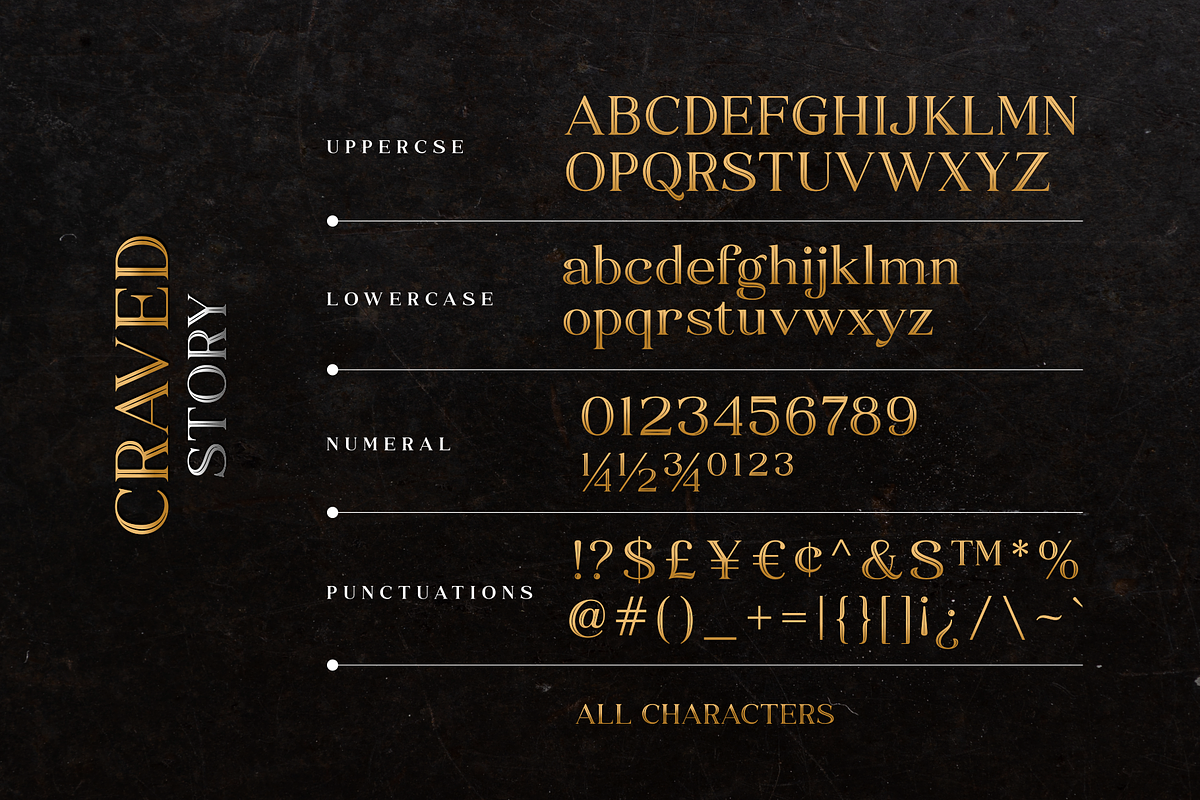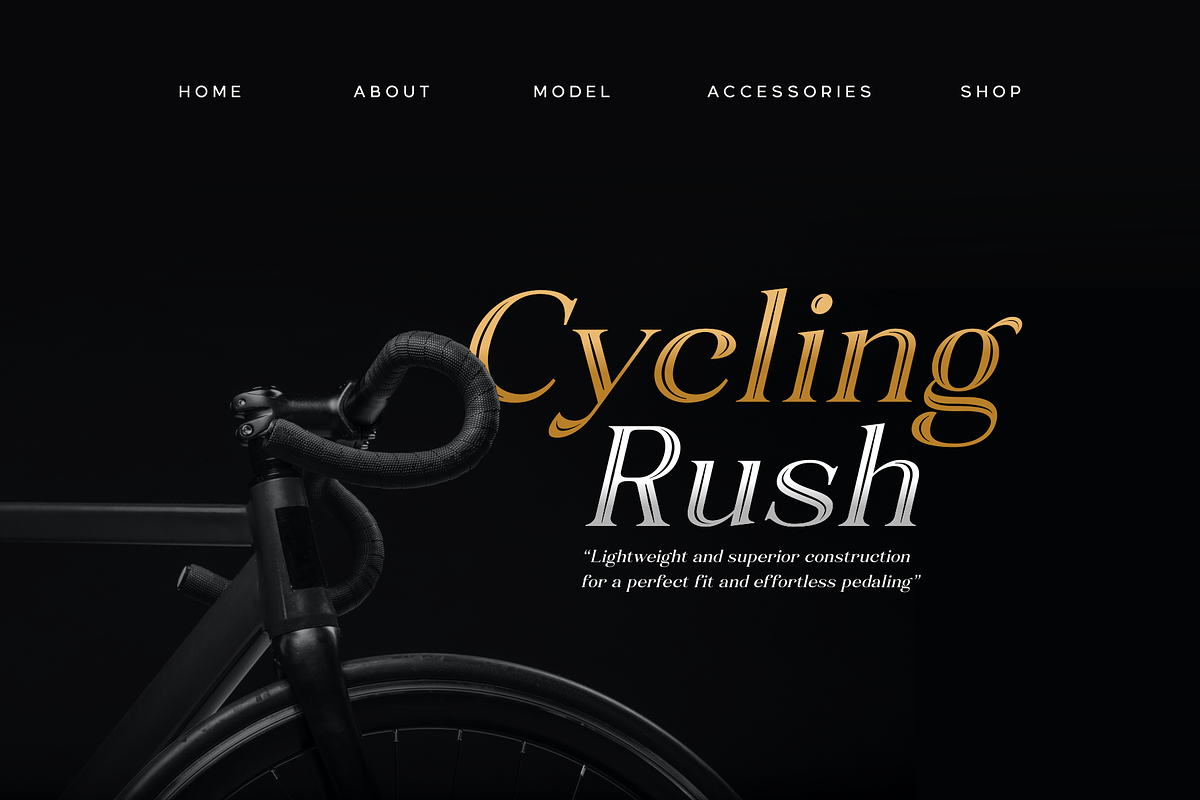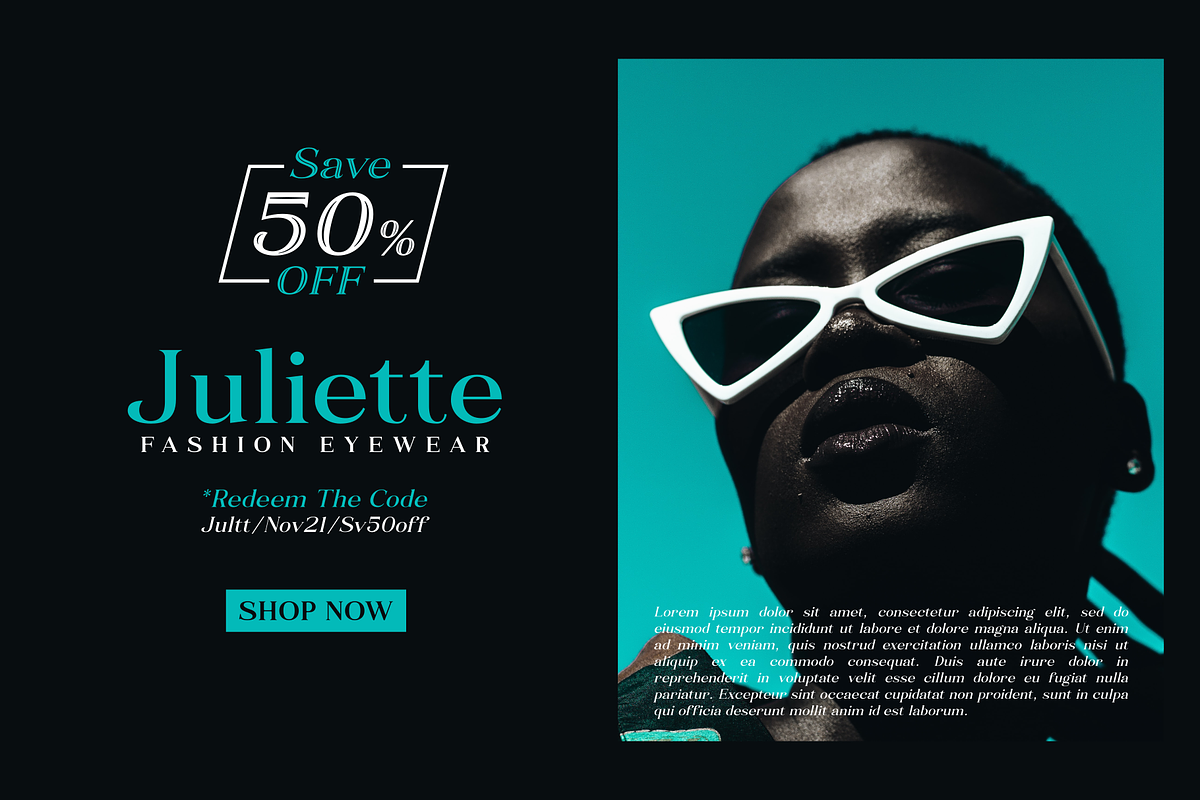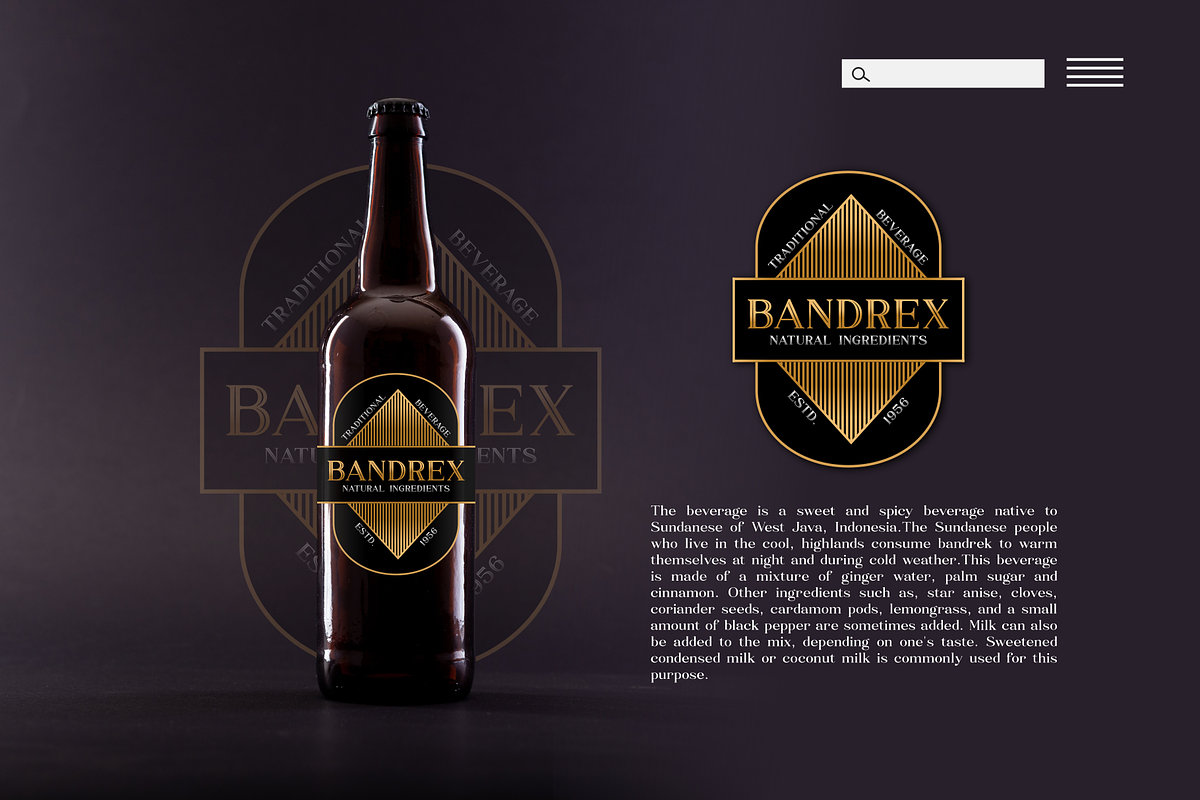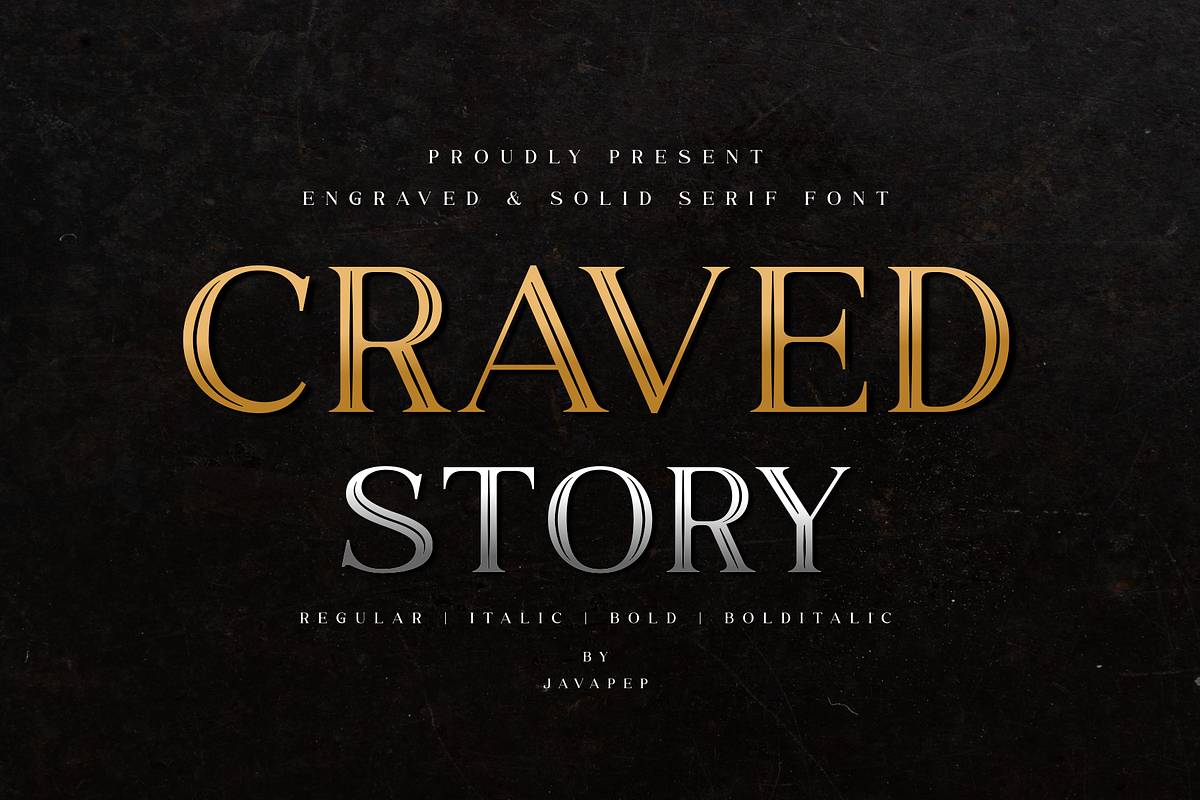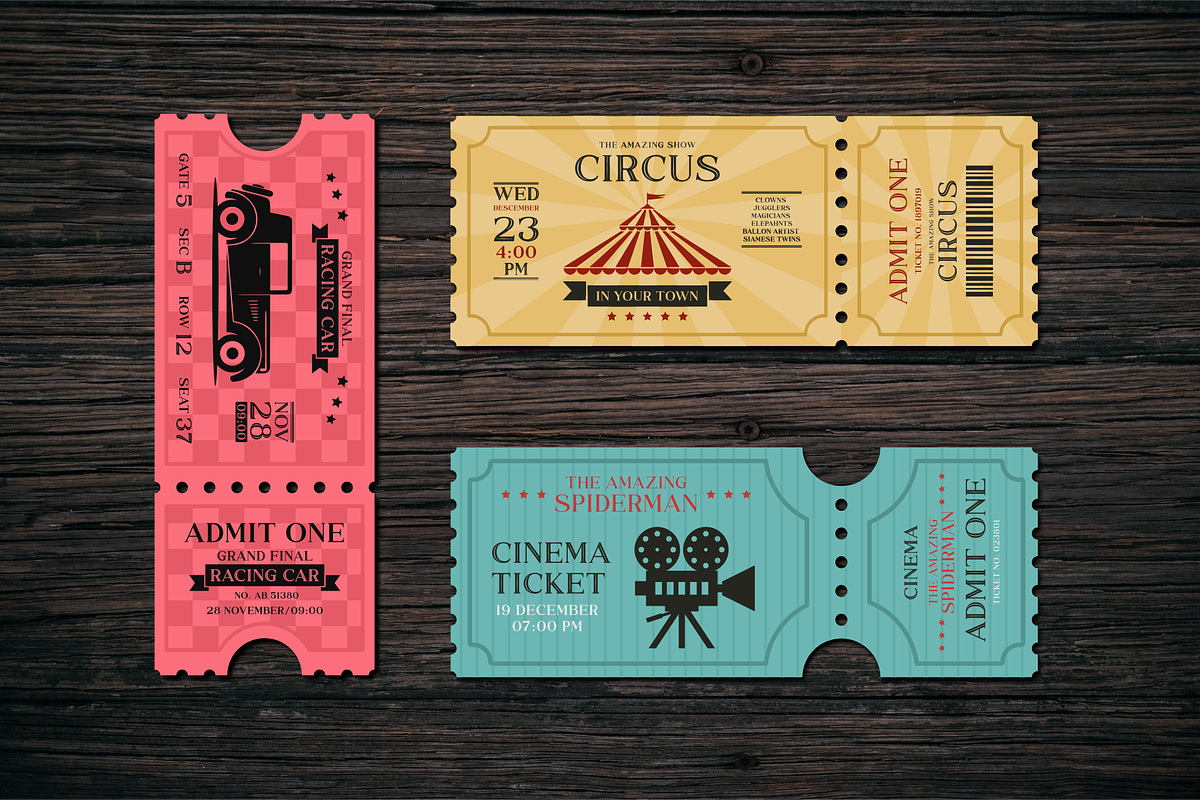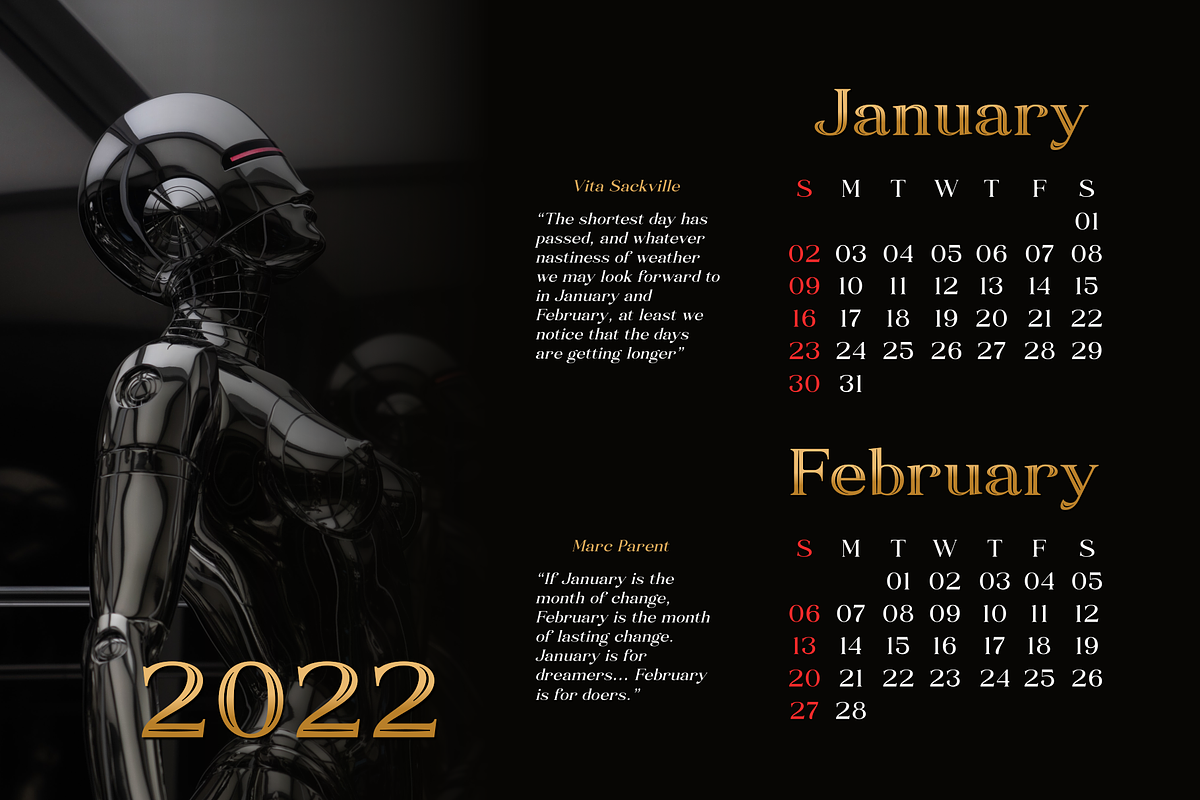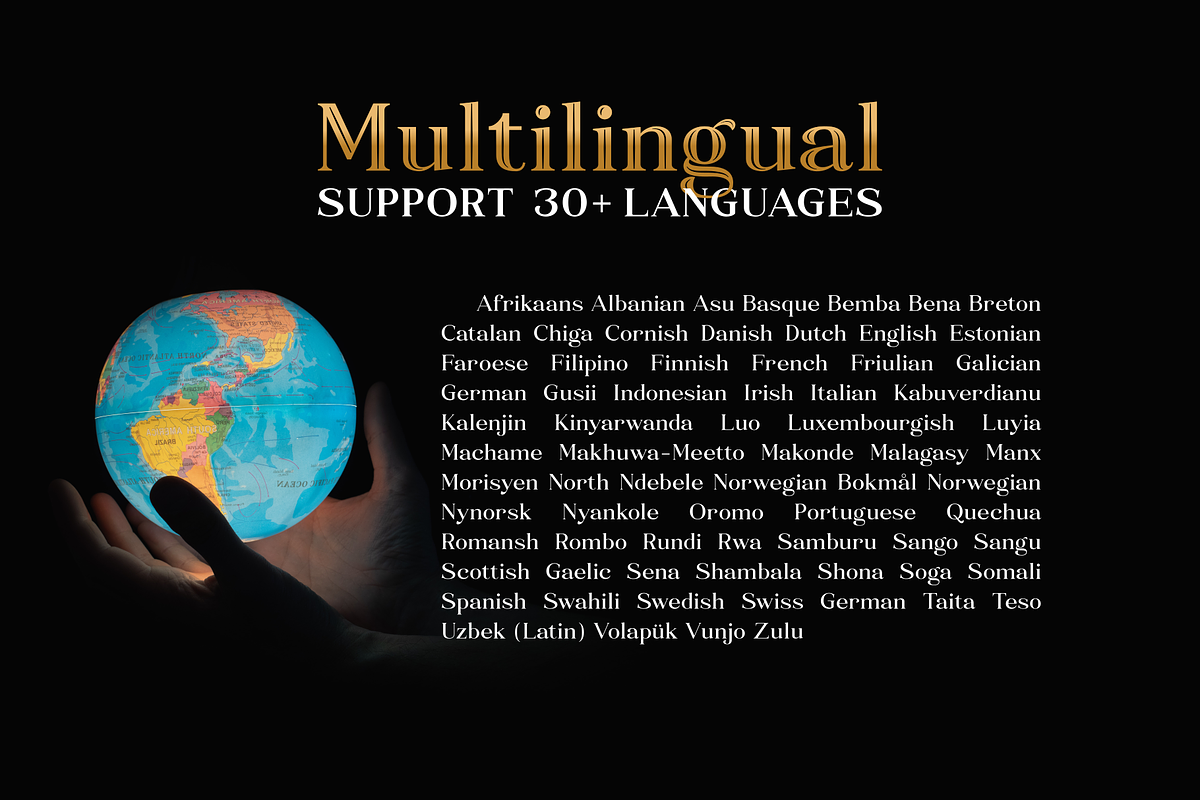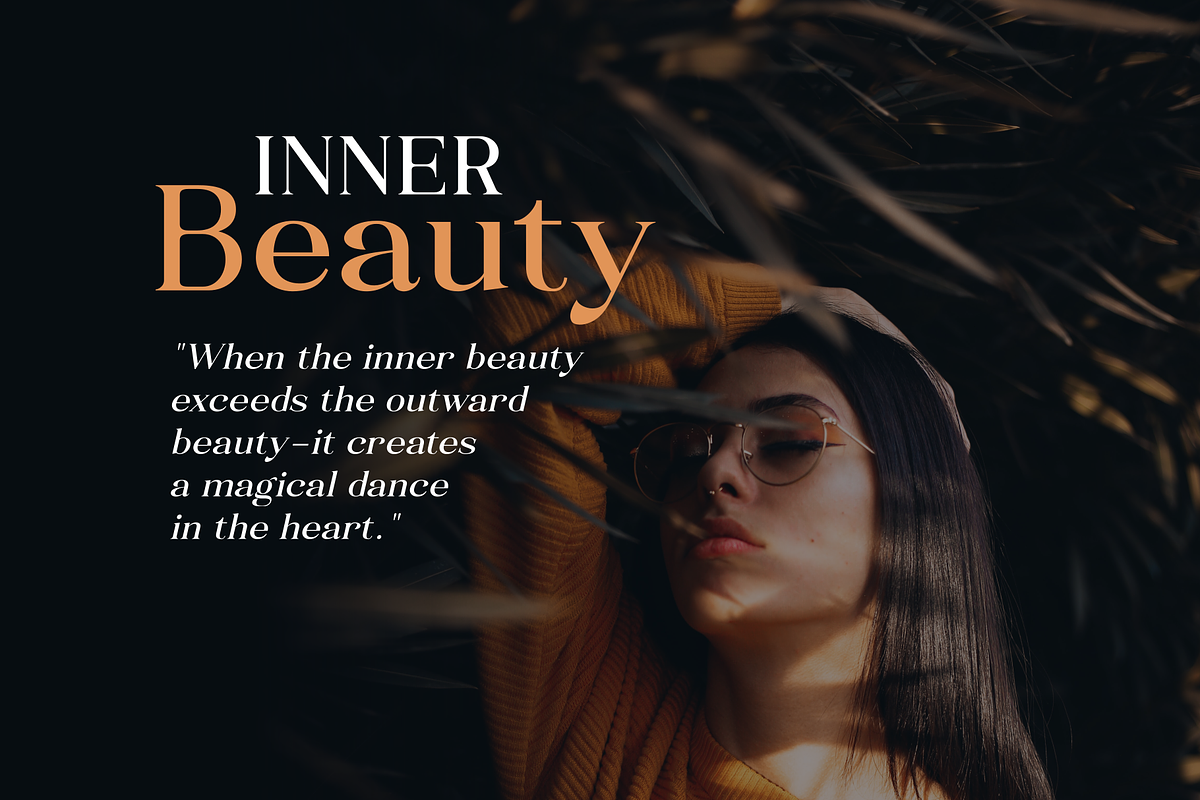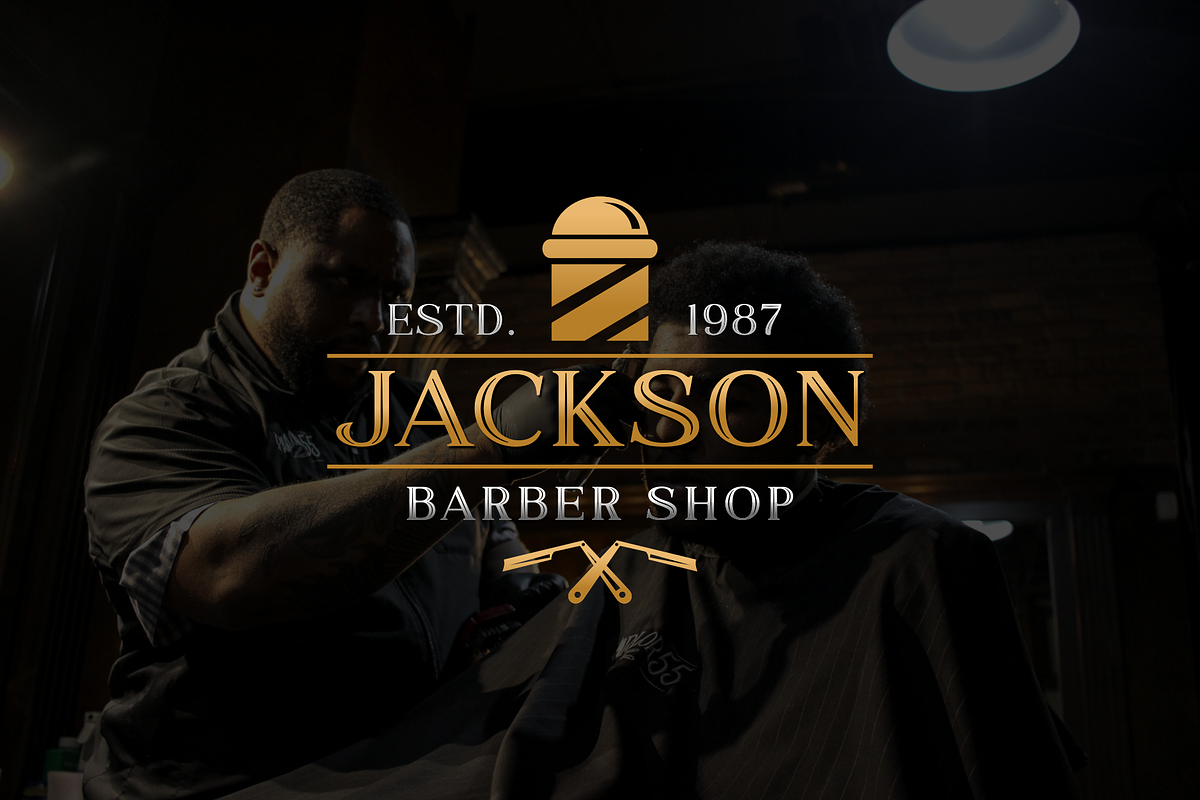
Craved Story - Engraved & Solid Seri
Proudly present the newest product called Craved Story Font. In the design process added engraving to every detail of the font character to create a stylish and elegant impression so your design project can make more outstanding. Craved Story Font is also perfect for use in vintage-style projects. In the package of this product, you'll get engraved and solid font so you can mix and match for your project.
- Multilingual support more than 30 languages
- Complete characters such as uppercase, lowercase, numeral, and punctuations